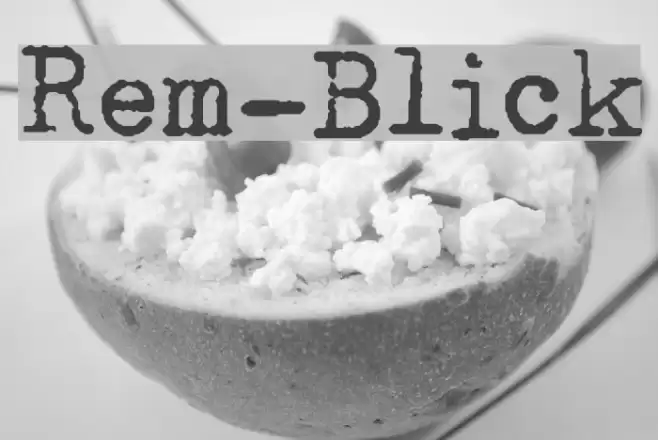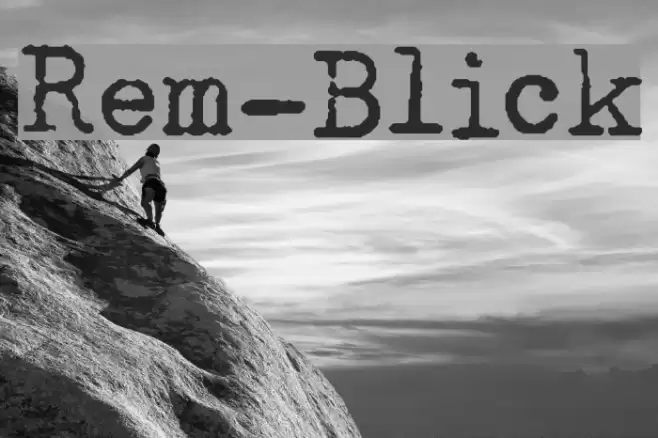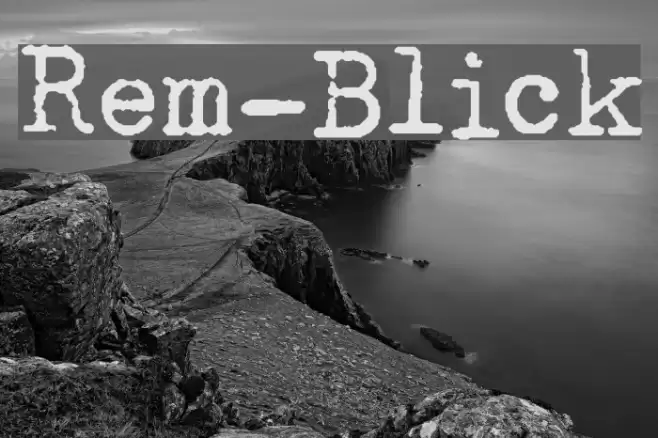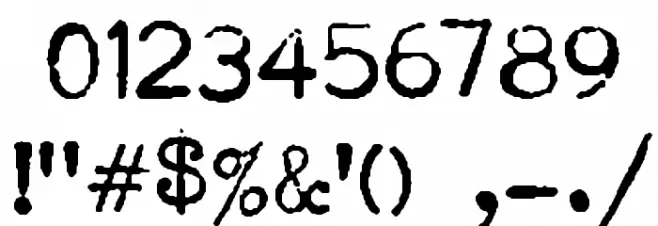
Rem-Blick Font
Rem-Blick Description
This font exudes a vintage typewriter aesthetic, characterized by its distinct, slightly irregular letterforms that mimic the imperfections of old mechanical typewriters. The uppercase and lowercase letters maintain a consistent style, with a rugged texture that adds a sense of authenticity and nostalgia. The numerals and special characters follow the same design ethos, providing a cohesive look across all glyphs. The font's bold strokes and uneven edges give it a unique charm, making it ideal for projects that require a retro or industrial feel.
A vintage typewriter-style font with rugged, irregular letterforms from Uncategorized fonts.
- Proposed Projects: Ideal for vintage-themed designs, retro posters, typewriter art, and projects requiring an industrial or nostalgic touch.
- Overall Style: Vintage